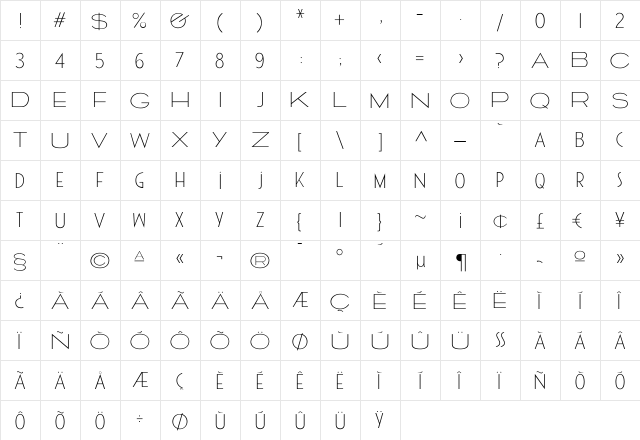
Cassandra Light Regular
Design Context for Cassandra Light Typeface
Cassandra Light offers clean, dependable letterforms without strong stylistic allegiance, making it a practical choice for designers who need flexibility. The delicate stroke weight brings airiness and refinement to layouts.